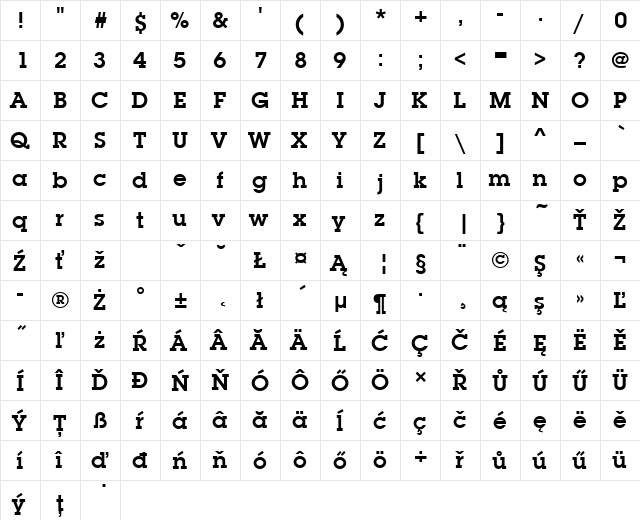
LubalinGraItcTEEDem Regular
Design Context for LubalinGraItcTEEDem Typeface
LubalinGraItcTEEDem offers clean, dependable letterforms without strong stylistic allegiance, making it a practical choice for designers who need flexibility.